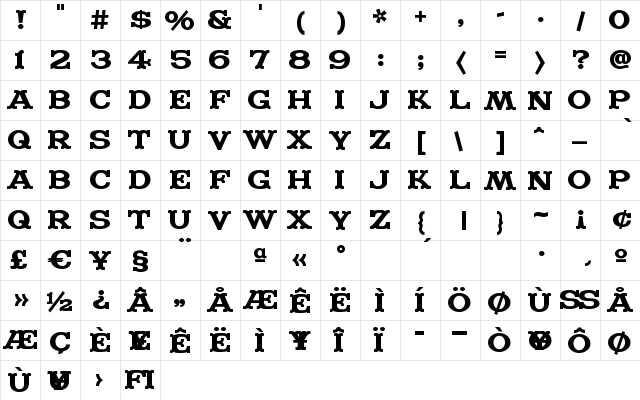
MADFONT Regular
Design Context for MADFONT Typeface
MADFONT is a composed and adaptable typeface that performs quietly and consistently across a wide range of design contexts.